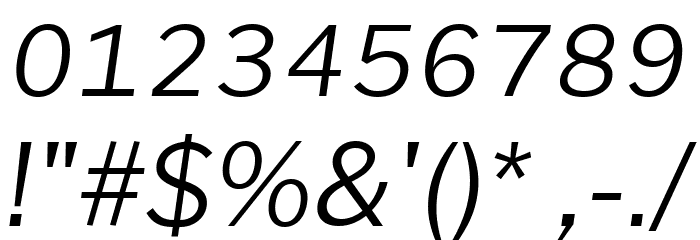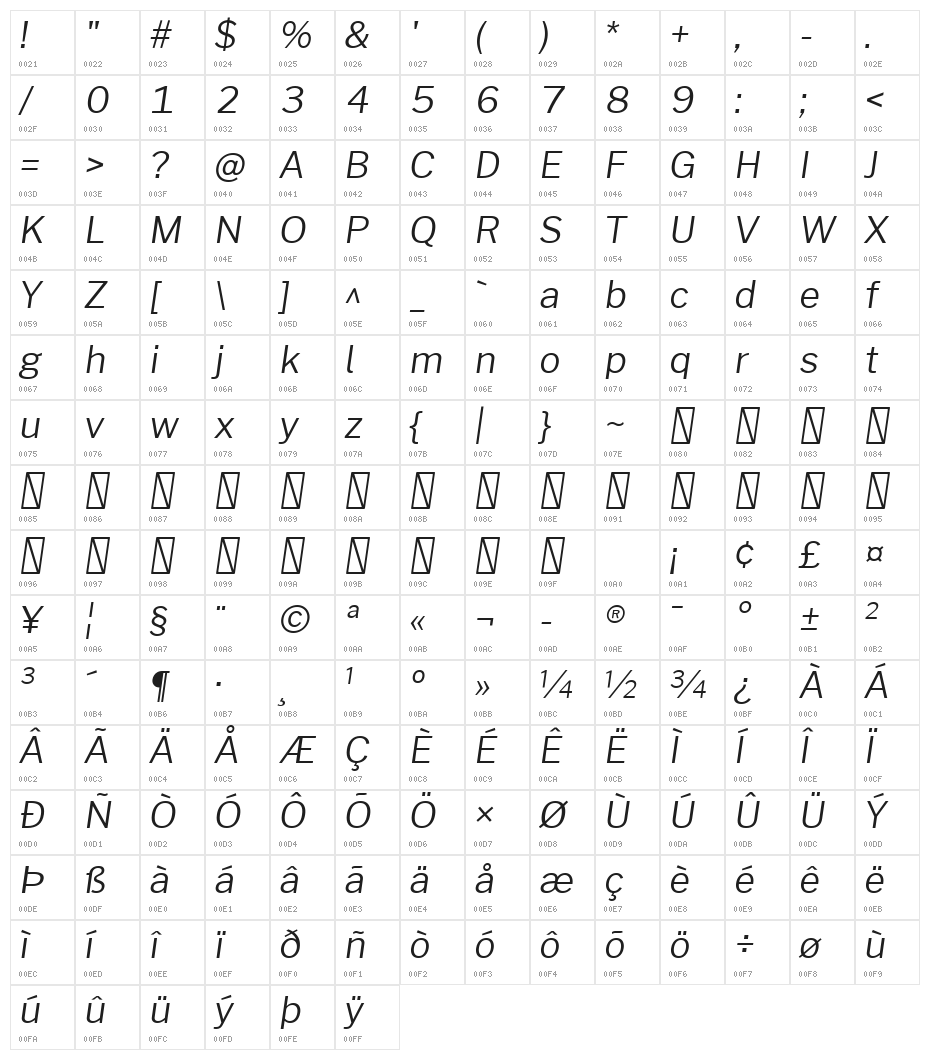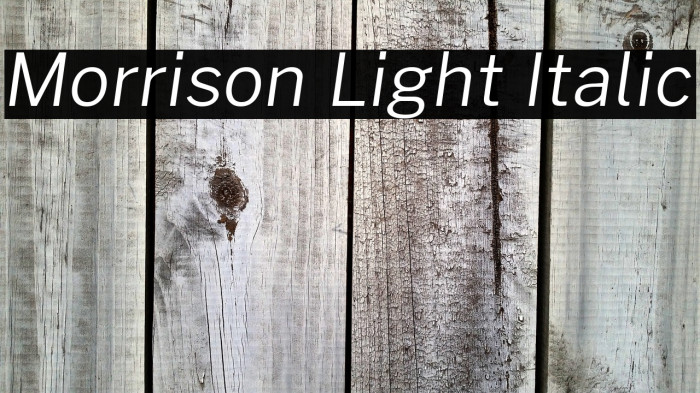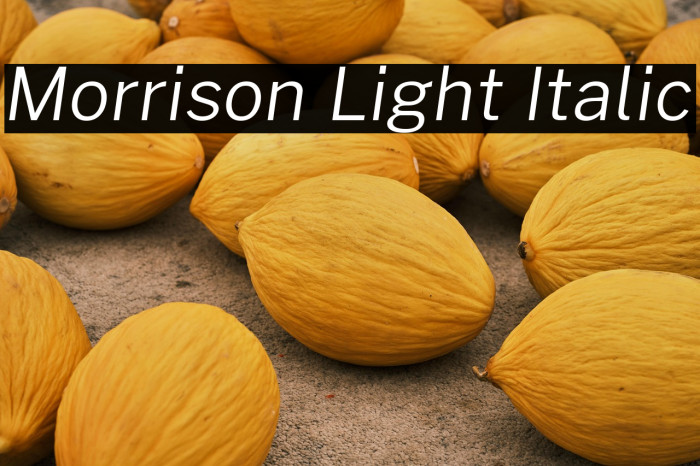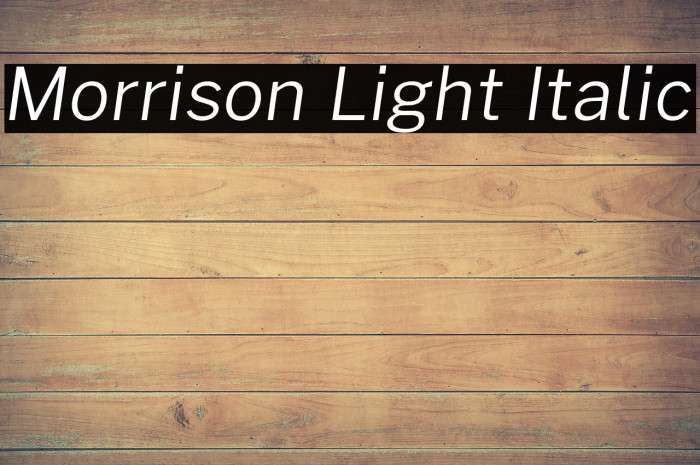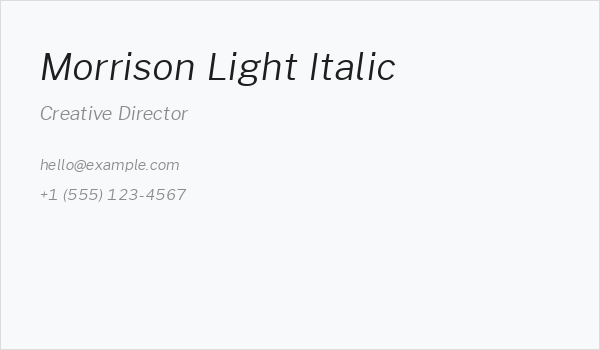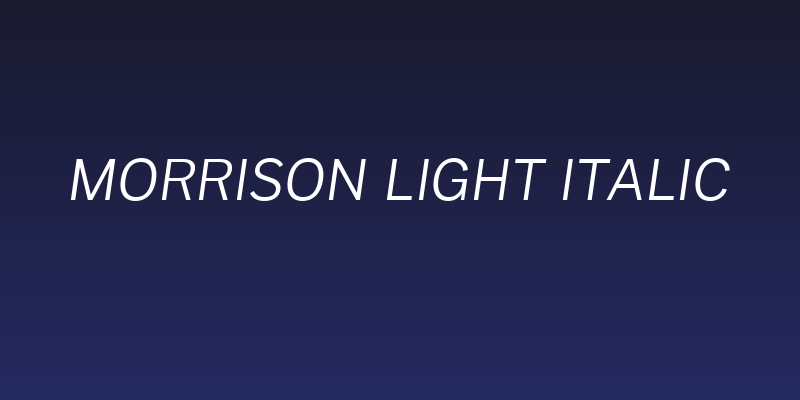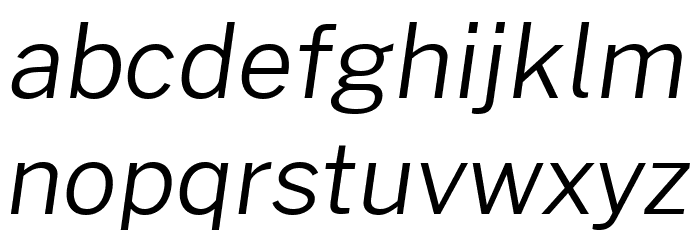
Morrison Light Italic Font
Morrison Light Italic Description
This font features a sleek and modern design with a light weight and italic style. The characters are slightly slanted, giving a dynamic and elegant appearance. The strokes are consistent and smooth, with a low contrast between thick and thin lines. The overall look is clean and professional, making it suitable for a variety of applications. The spacing between characters is normal, ensuring readability while maintaining a stylish aesthetic. This font is versatile, offering a contemporary feel that can enhance both digital and print media.
| Proposed Projects | Ideal for branding, editorial design, websites, and corporate communications. |